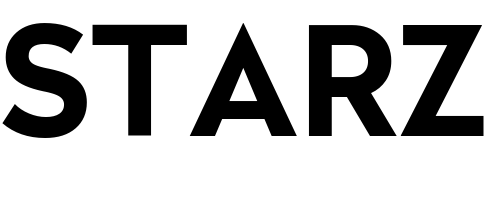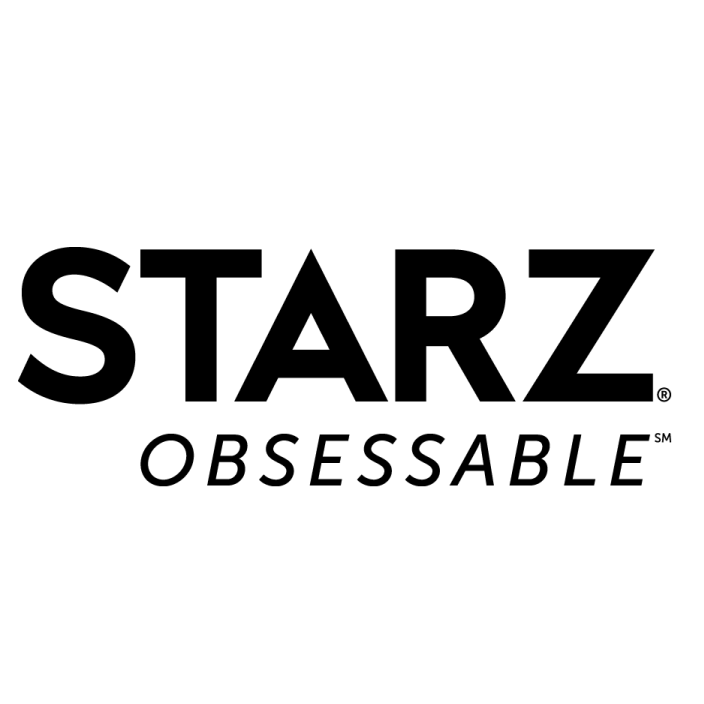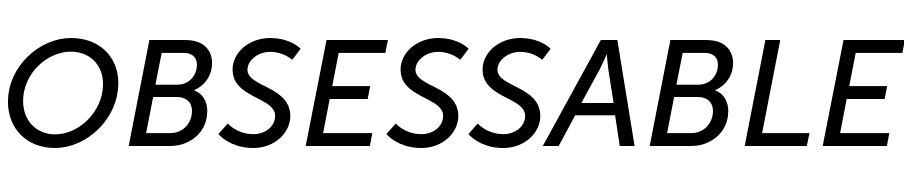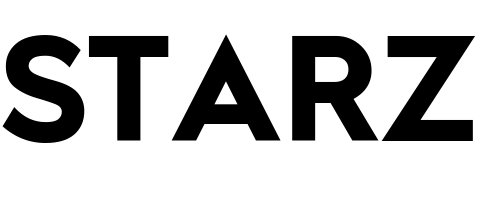
Starz Logo Font
LogoStarz is a premium cable and streaming service that offers original programming, movies, and live TV. It is owned by Lionsgate and is available to viewers in the United States and certain international markets.
In April 2016, Starz underwent a rebranding, which included a new logo that was designed to be clean, bold, and timeless. Although the logo was custom designed, there are similar geometric sans serif fonts available, such as Radikal Bold, Deepak Dogra’s Geometos and Renogare. If you wish to use a recreate the Starz logo then a free download of the Starz 2016 font created by a DeviantArt user can be found here in the Fonts Used Section.
Additionally, the font used for the tagline "OBSESSABLE" is Museo Sans 500 Itlaic by Jos Buivenga.